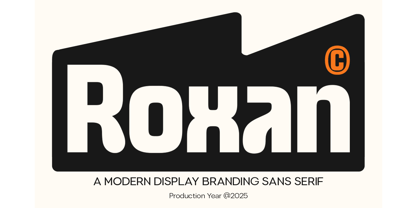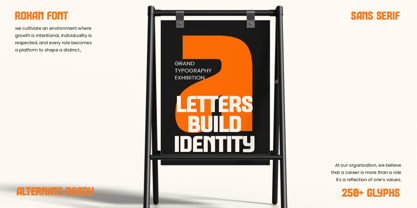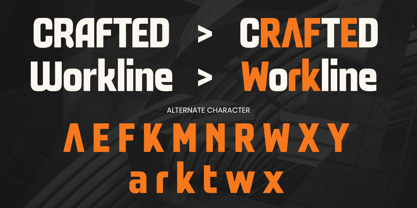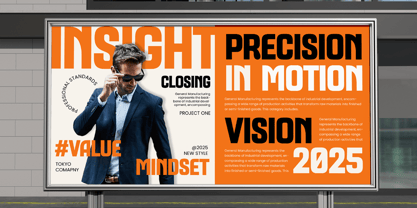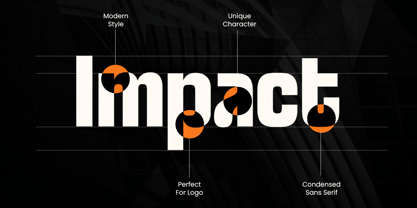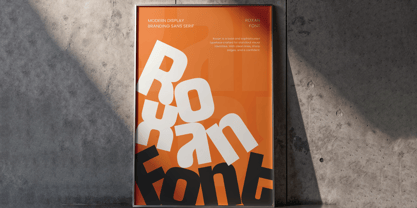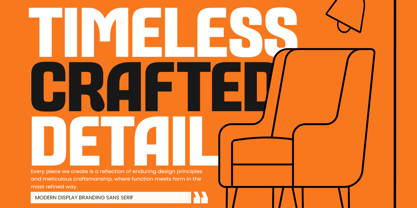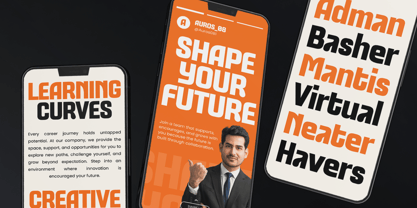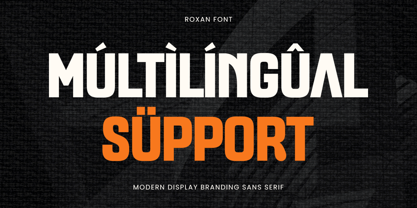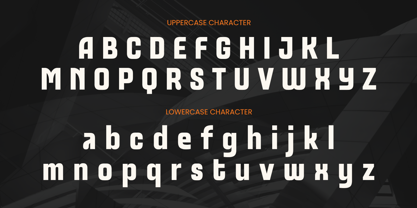
Roxan is a modern display sans serif font crafted for professional branding and creative projects. Ideal for logos, posters, social media, packaging, and digital products, it offers clean lines, contemporary style, and a bold presence.
With versatile and legible letterforms, Roxan brings a polished and modern aesthetic to any visual identity, ensuring your designs stand out in both print and digital applications.
Roxan – Modern Display Branding Sans Serif Features
Clean and modern sans serif character set
Perfect for branding, logos, and display designs
Uppercase, lowercase, numerals, and punctuation included
OpenType features for extra versatility
Multilingual support for Afrikaans, Albanian, Asu, Basque, Bemba, Bena, Breton, Chiga, Cornish, Dutch, English, Estonian, Filipino, Finnish, Friulian, Galician, German, Gusii, Indonesian, Irish, Italian, Kabuverdianu, Kalenjin, Kinyarwanda, Luo, Luxembourgish, Luyia, Machame, Makhuwa-Meetto, Makonde, Malagasy, Manx, Morisyen, North Ndebele, Nyankole, Oromo, Portuguese, Quechua, Romansh, Rombo, Rundi, Rwa, Samburu, Sango, Sangu, Scottish Gaelic, Sena, Shambala, Shona, Soga, Somali, Spanish, Swahili, Swedish, Swiss, and more.
Elevate your branding projects with Roxan – a bold, modern, and versatile display sans serif font. ✨